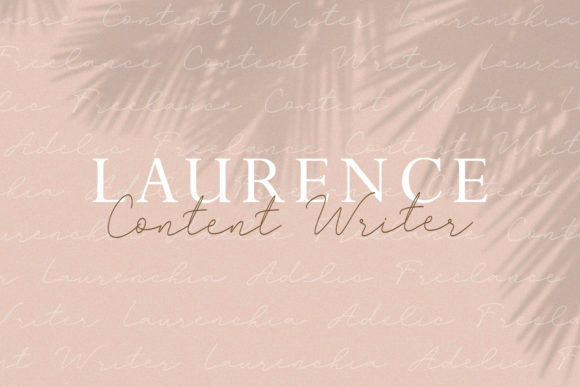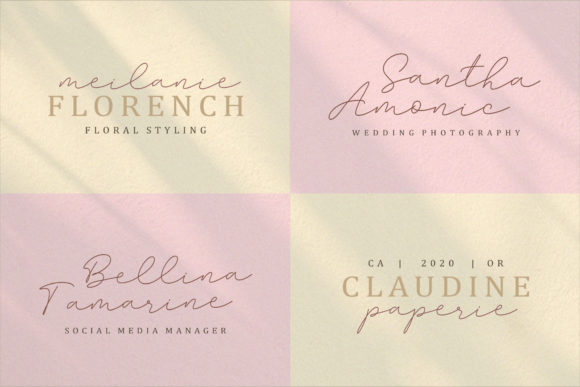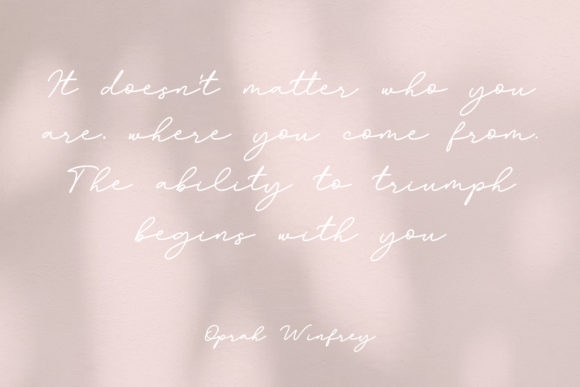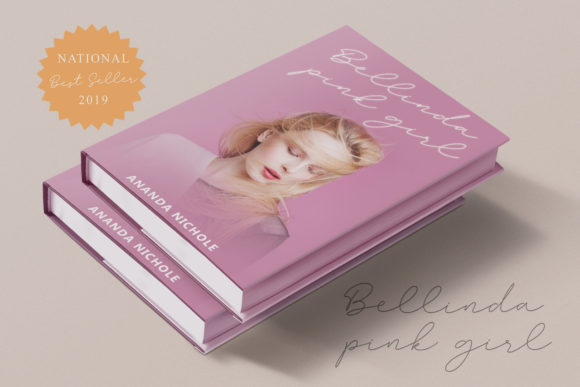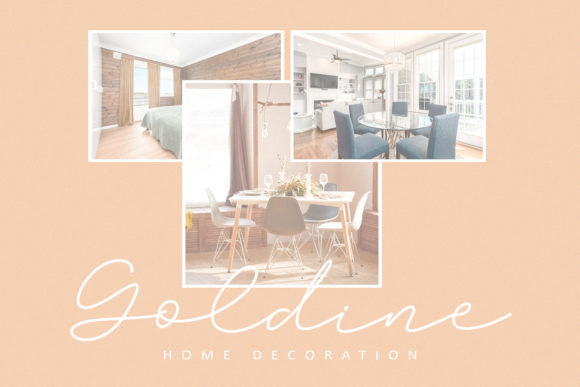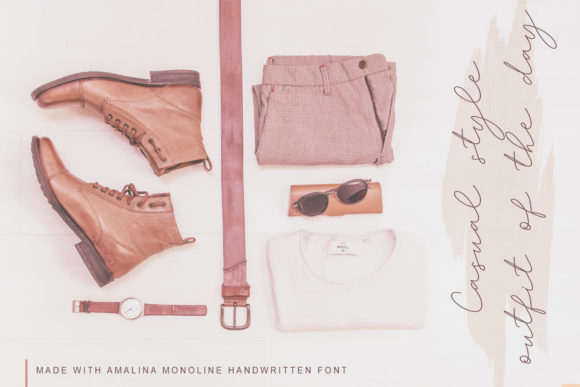
The Amalina Font: A Modern Script to Elevate Your Crafting Projects
I still remember the time I was working on a custom wedding invitation project, and my client asked for a font that was both elegant and playful. I scoured the internet, trying out font after font, but nothing seemed quite right. That was until I stumbled upon the Amalina font. With its modern and stunning script, I knew I had found the perfect fit. In this article, I’ll share my experience with the Amalina font, its features, and how to make the most of it in your crafting projects.
An Honest Review of Amalina Font
- ✨ Fresh and Modern Feel: Amalina has a unique, contemporary look that sets it apart from more traditional scripts.
- ✅ Elegant and Playful: This font strikes the perfect balance between sophistication and whimsy, making it ideal for a wide range of projects.
- 💫 Highly Versatile: Whether you’re working on wedding invitations, branding materials, or DIY crafts, Amalina adapts beautifully to different contexts.
While Amalina is an exceptional font, there are a few things to keep in mind:
- 🤔 Legibility at Small Sizes: Like many script fonts, Amalina can be a bit tricky to read at very small sizes. It’s best used at larger sizes where its details can shine.
- ⚠️ Limited Use of All Caps: While Amalina does offer some uppercase letters, it’s primarily designed for use with lowercase letters. This might limit its use in projects requiring extensive all-caps text.
- Experiment with OpenType features like ligatures and stylistic alternates to add personality to your text.
The Designer Inspiration Behind Amalina
While the actual origins of Amalina might not be well-documented, it’s easy to imagine that its designer was inspired by the flowing lines of handwritten calligraphy and the need for modern, digital-age typography. The result is a font that feels both timeless and contemporary.
| Font Name | Amalina Font |
| Author | Subectype |
| Is Amalina suitable for body text? | While Amalina is stunning, it’s primarily designed for headlines and short paragraphs. For longer body text, a more traditional font might be more readable. |
| Does Amalina support multiple languages? | Amalina likely supports a range of languages, but the extent of its language support can depend on the specific characters included in its design. It’s best to check the font’s documentation for specifics. |
With its fresh feel and stunning script, Amalina is sure to add a beautiful spark to any crafting project. Whether you’re a designer, crafter, or hobbyist, this modern font has the potential to elevate your work to new heights.